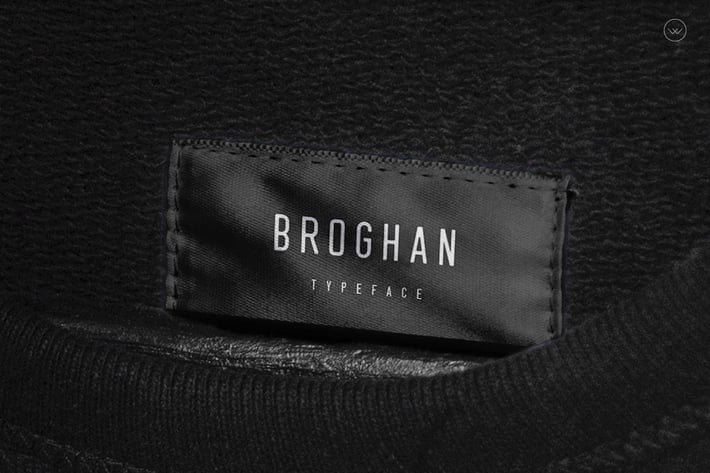
Broghan- Modern Typeface + WebFonts
Broghan
Another modern fantastic sanserif typeface from Webhance, which delivers a remarkable unique typography Style. The pack includes OTF, TTF, and Web Fonts (all EOT, TTF, WOFF included).